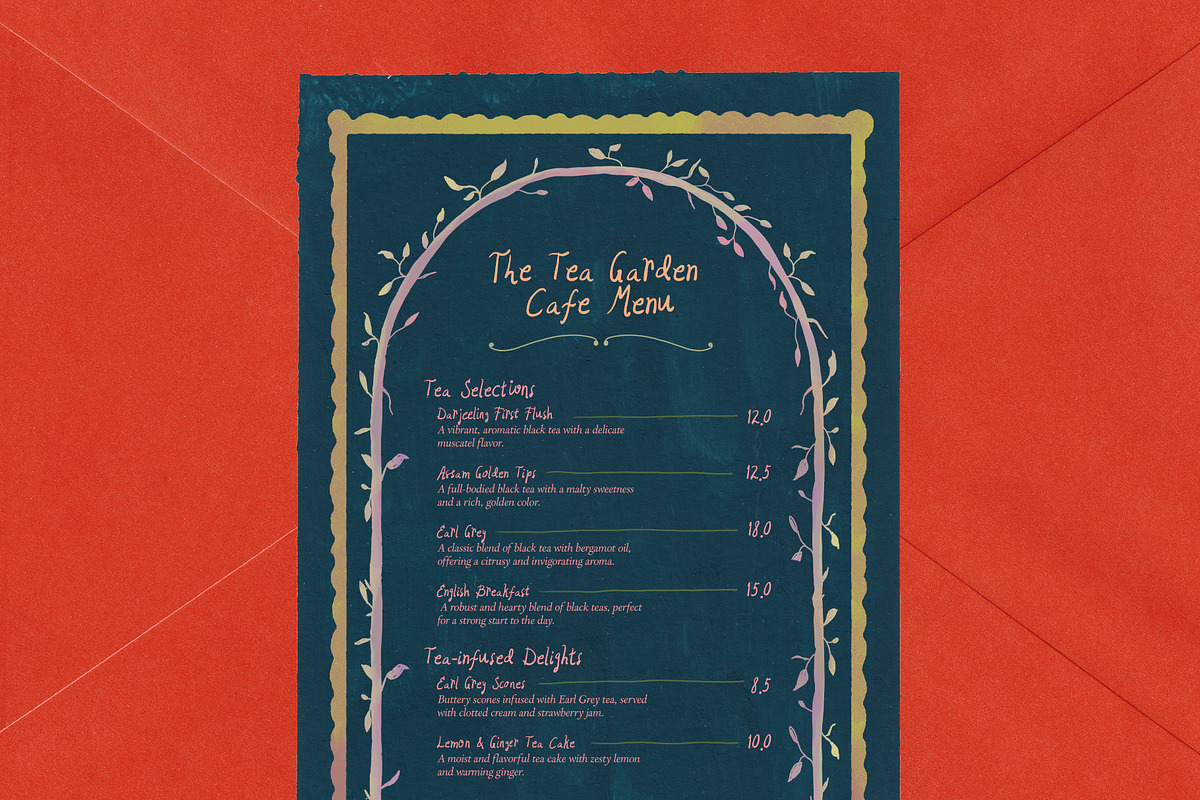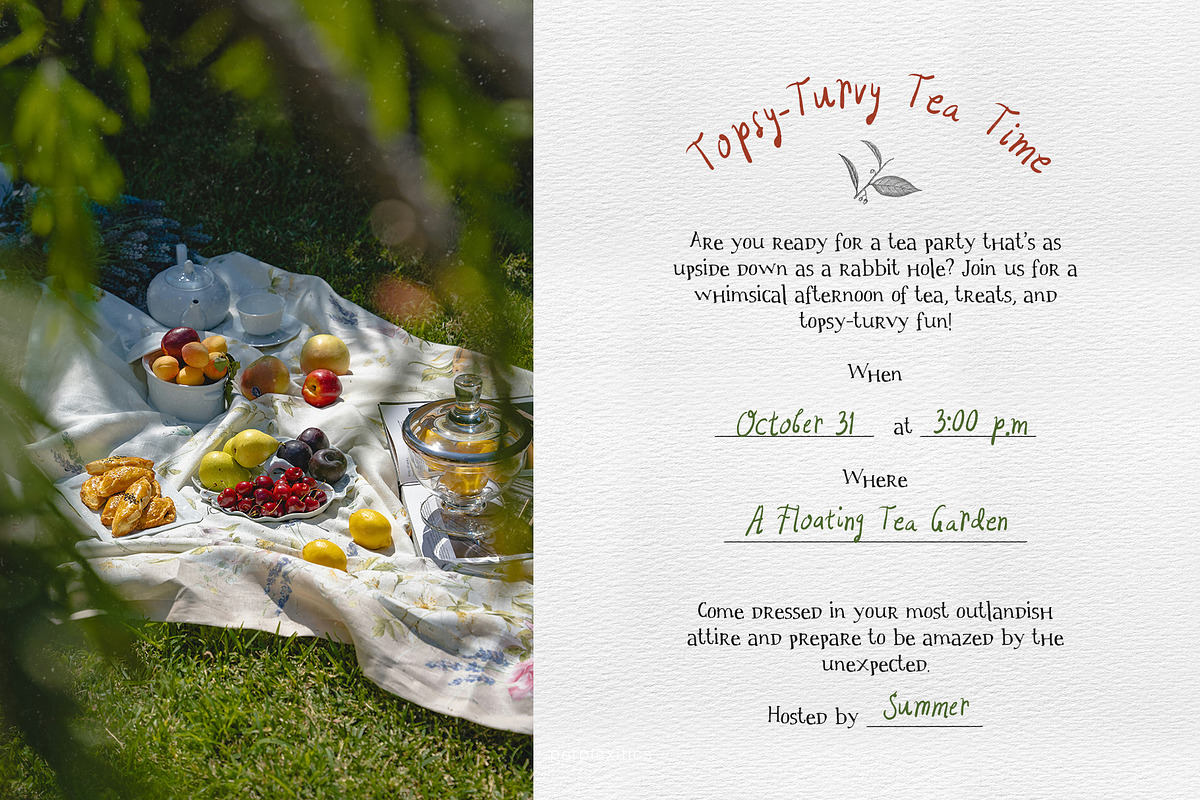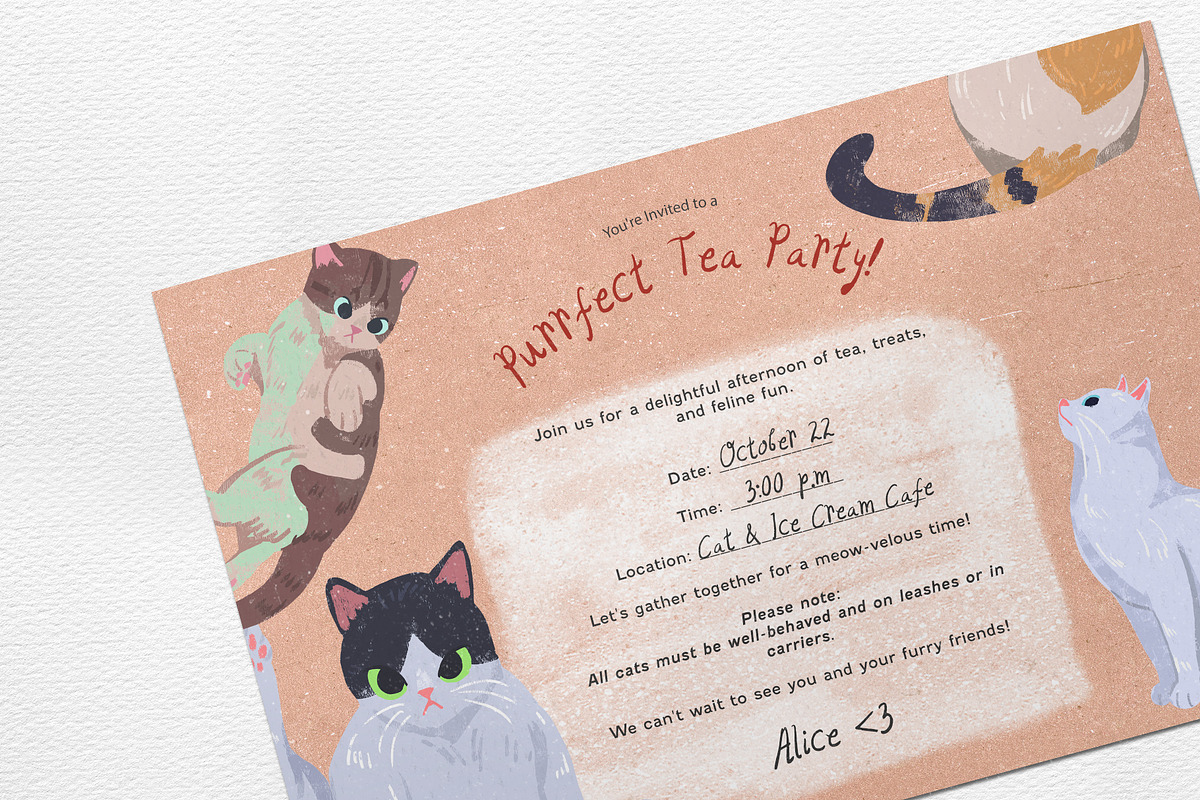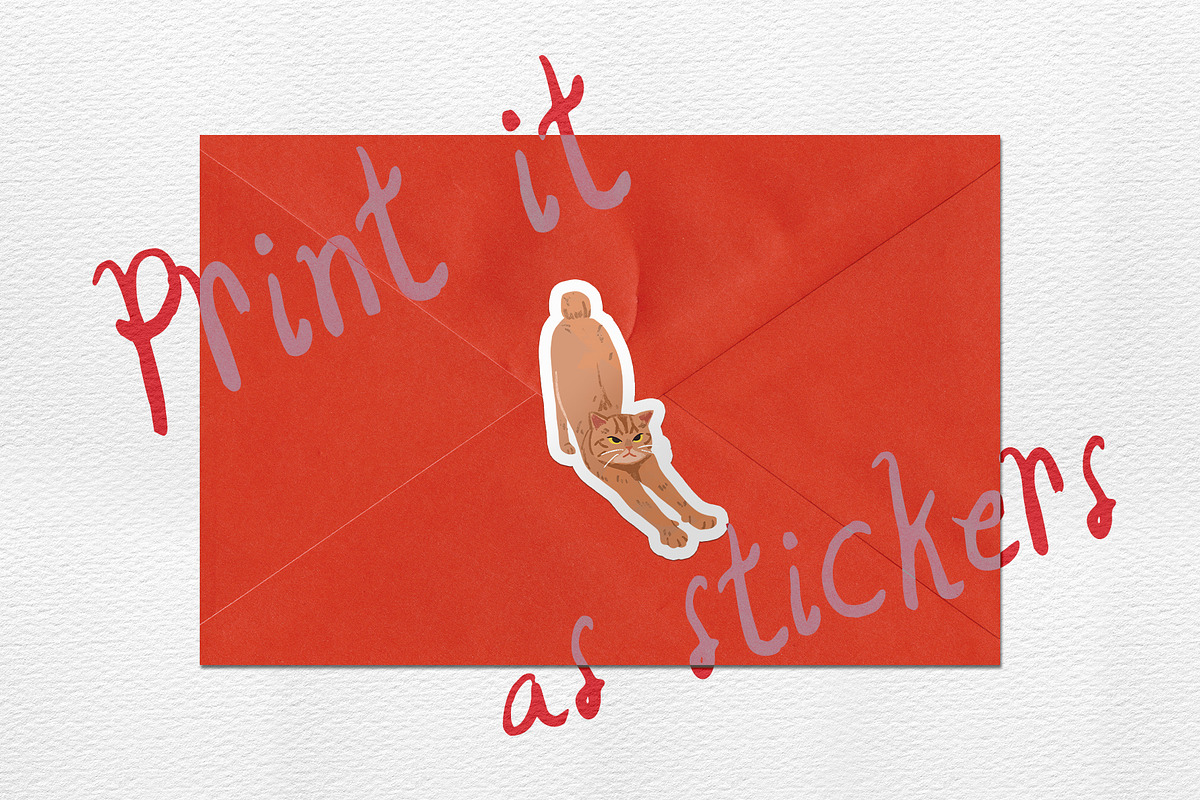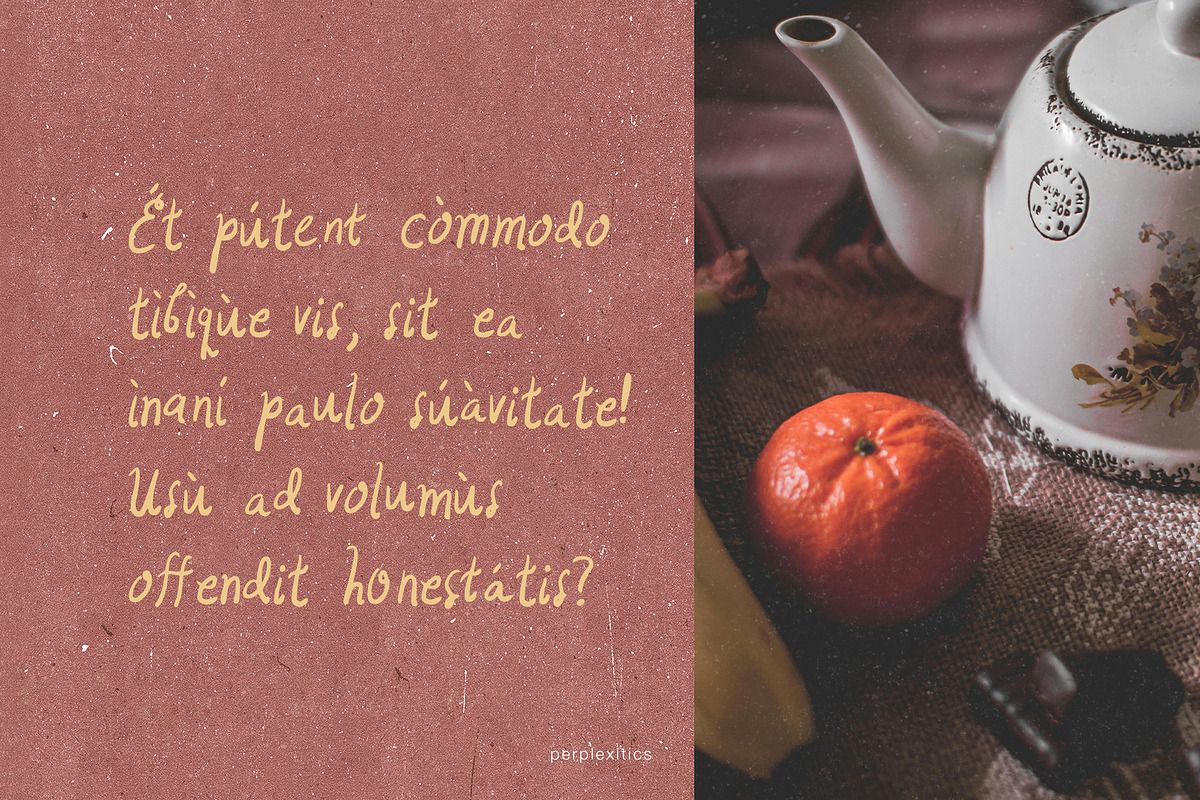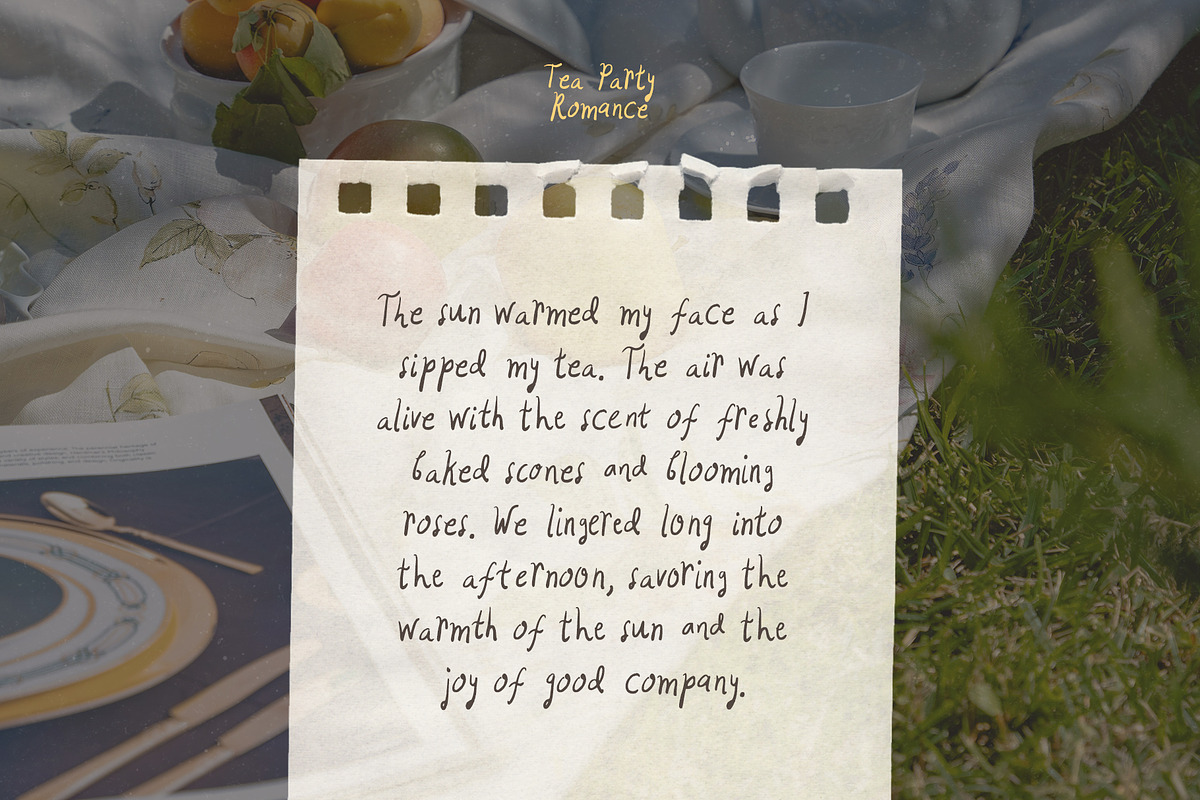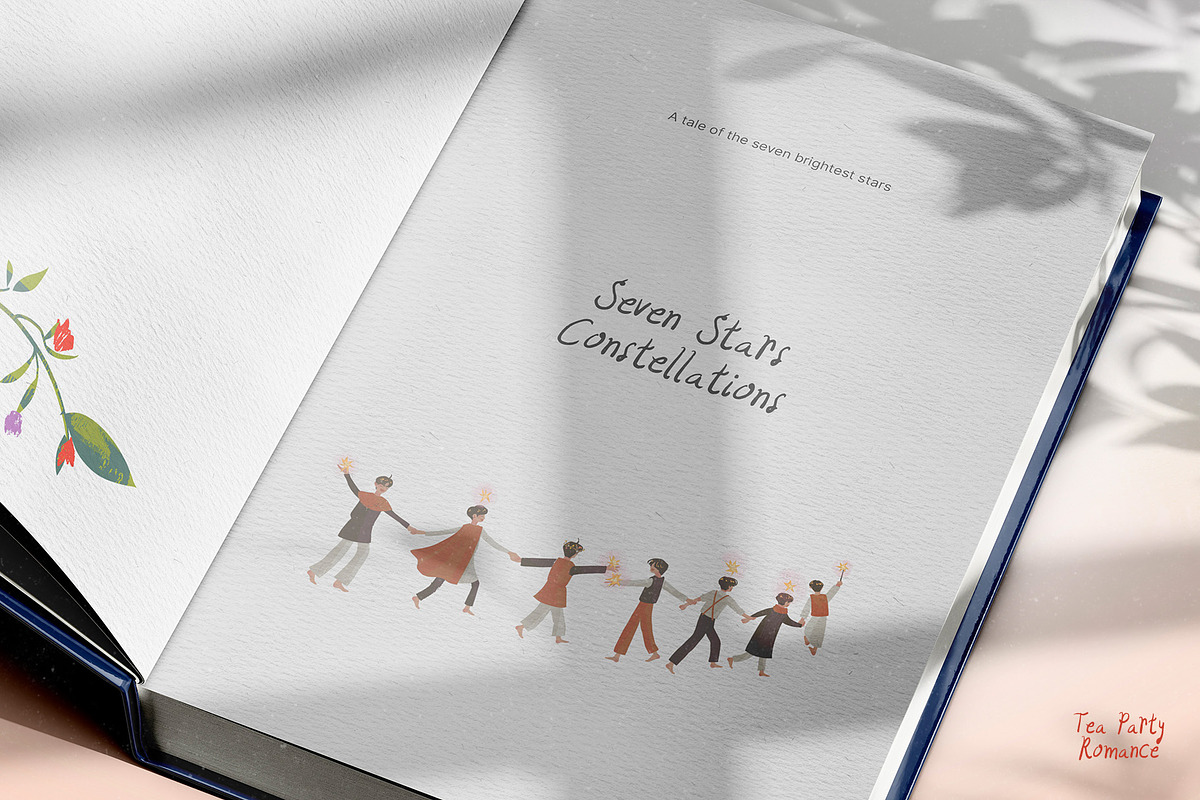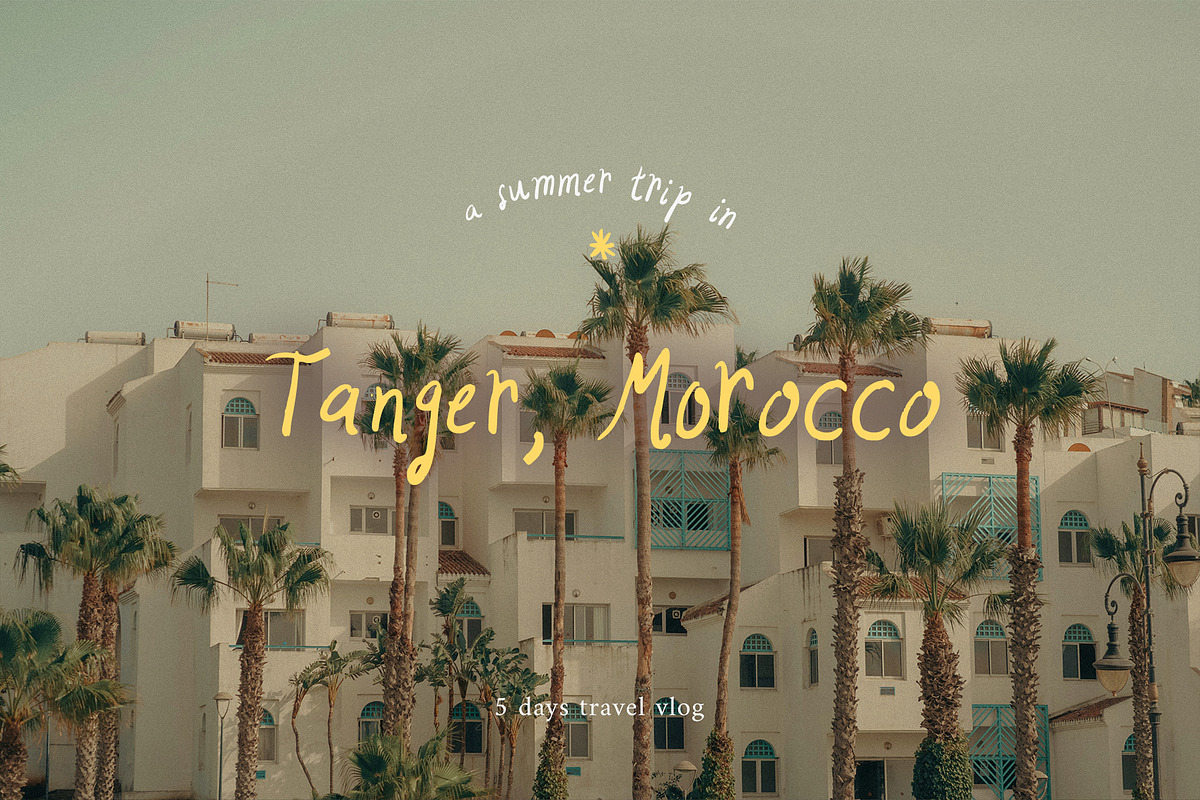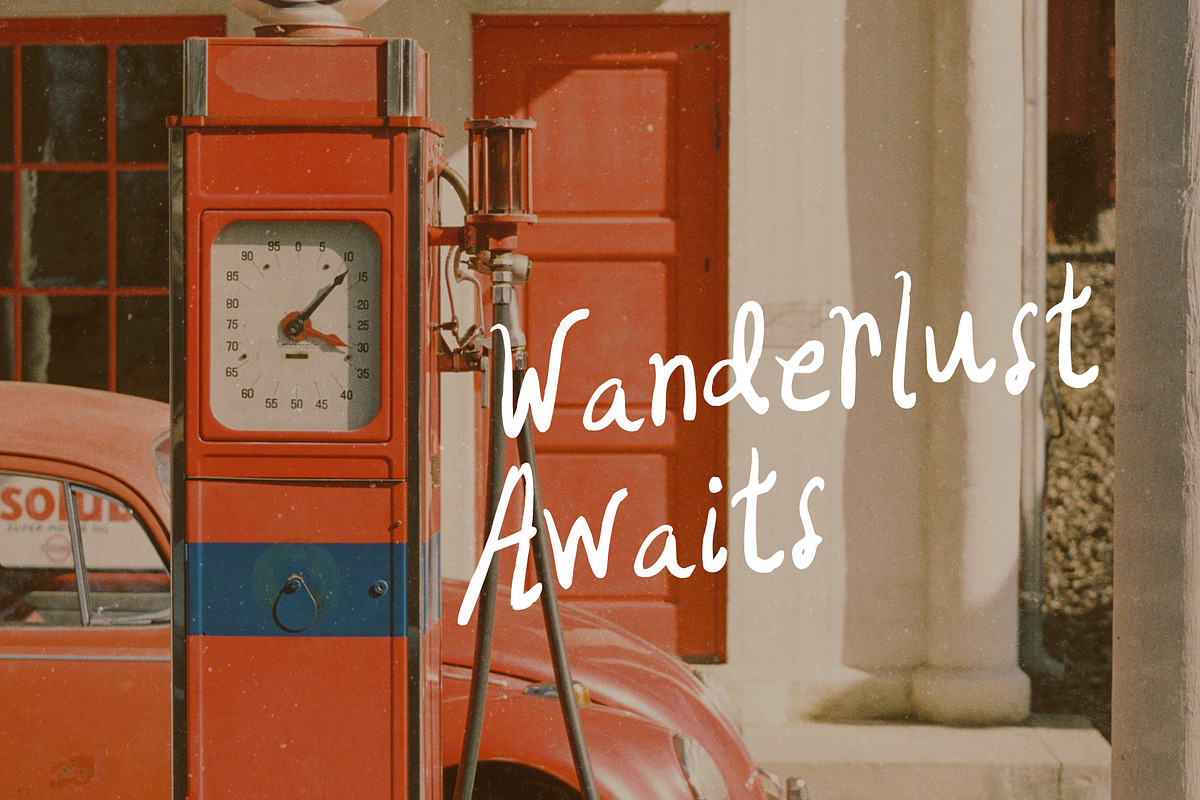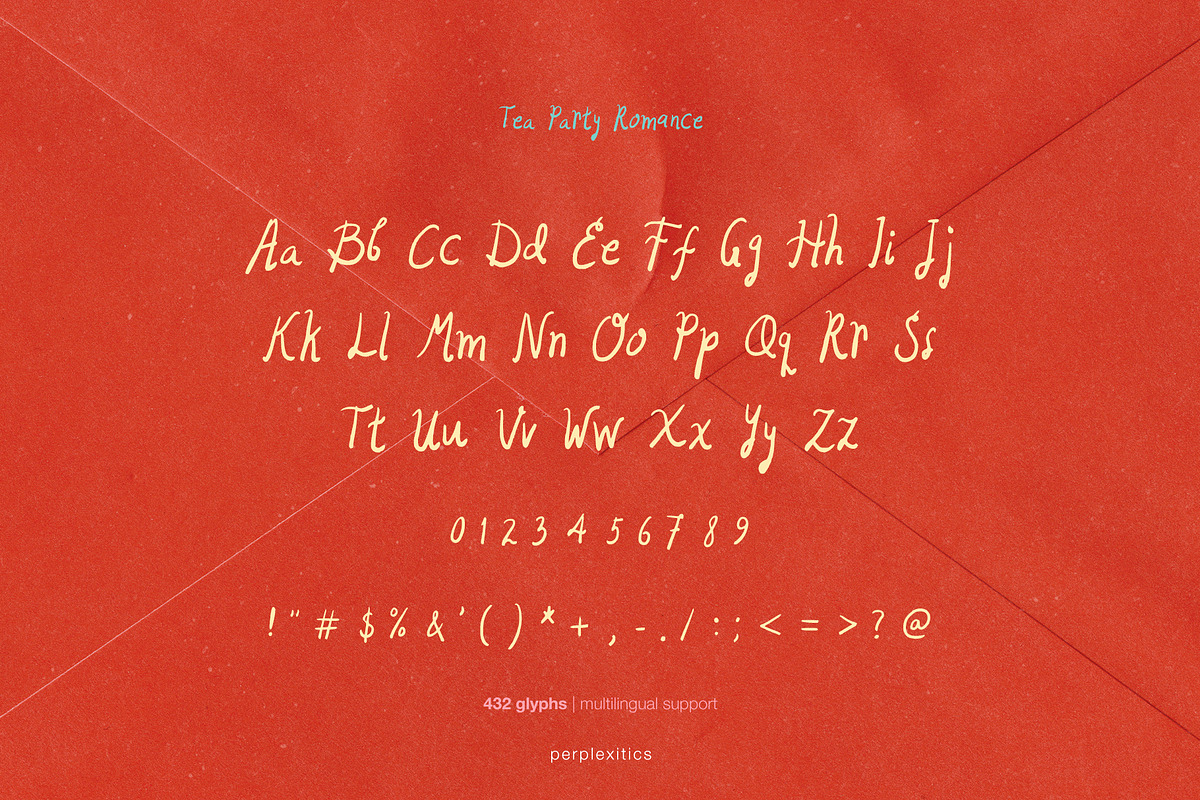
Tea Party Romance Handwritten Font
Tea Party Romance is a font that suggests a whimsical, charming, and slightly eccentric atmosphere, reminiscent of Mad Hatter's Tea Party in Alice in Wonderland.
Tea Party Romance Font is packed with everything you need, including uppercase and lowercase letters, numbers, and punctuation. Consists of 432 glyphs. Multilingual support.